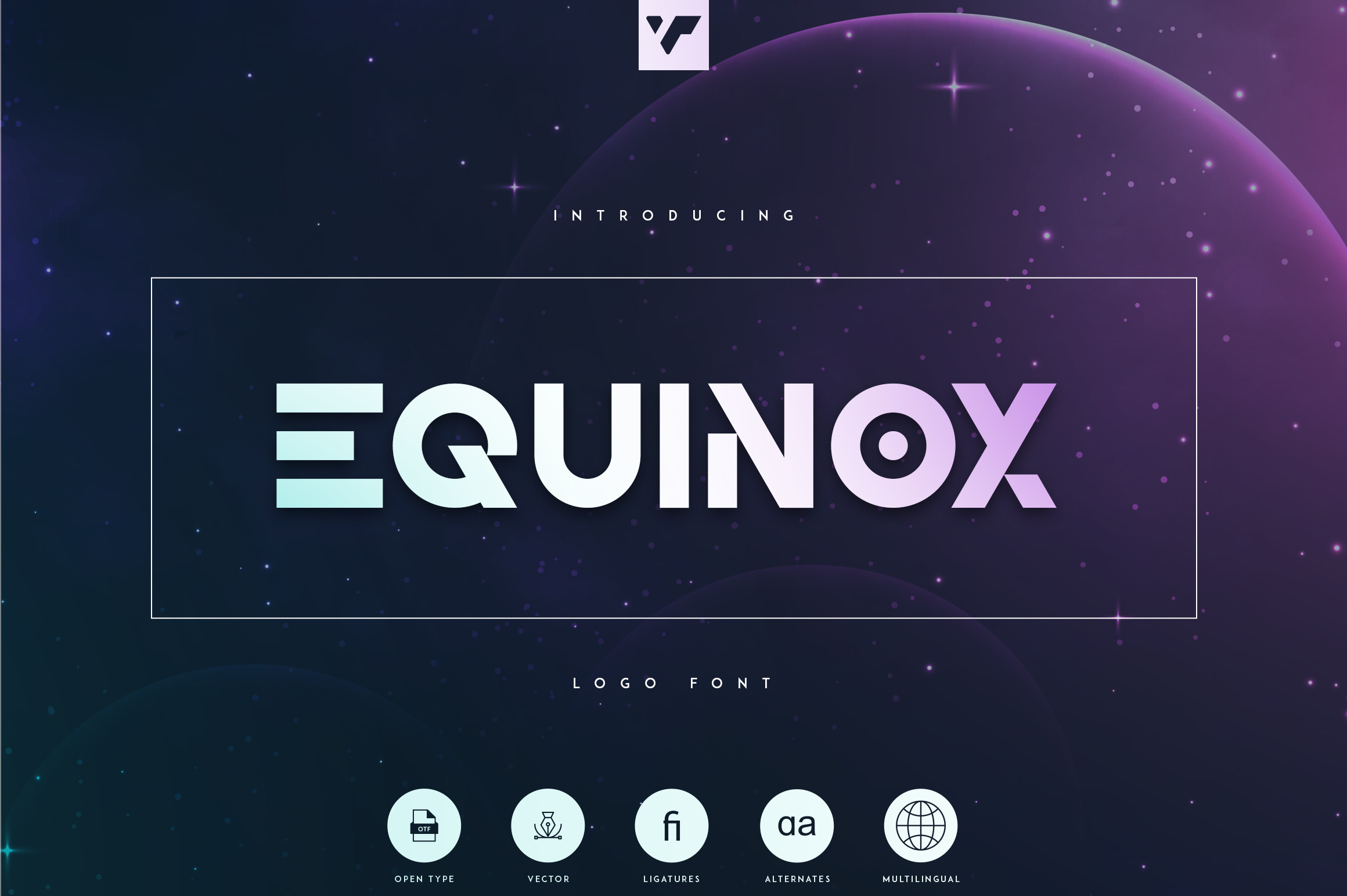
Introducing Equinox - Logo Font
Equinox is futuristic, logo font loaded with alternate glyphs, ligatures and multilingual support. It's a very versatile font that works great in large and small sizes.
Equinox is perfect for branding projects, home-ware designs, product packaging, magazine headers - or simply as a stylish text overlay to any background image.